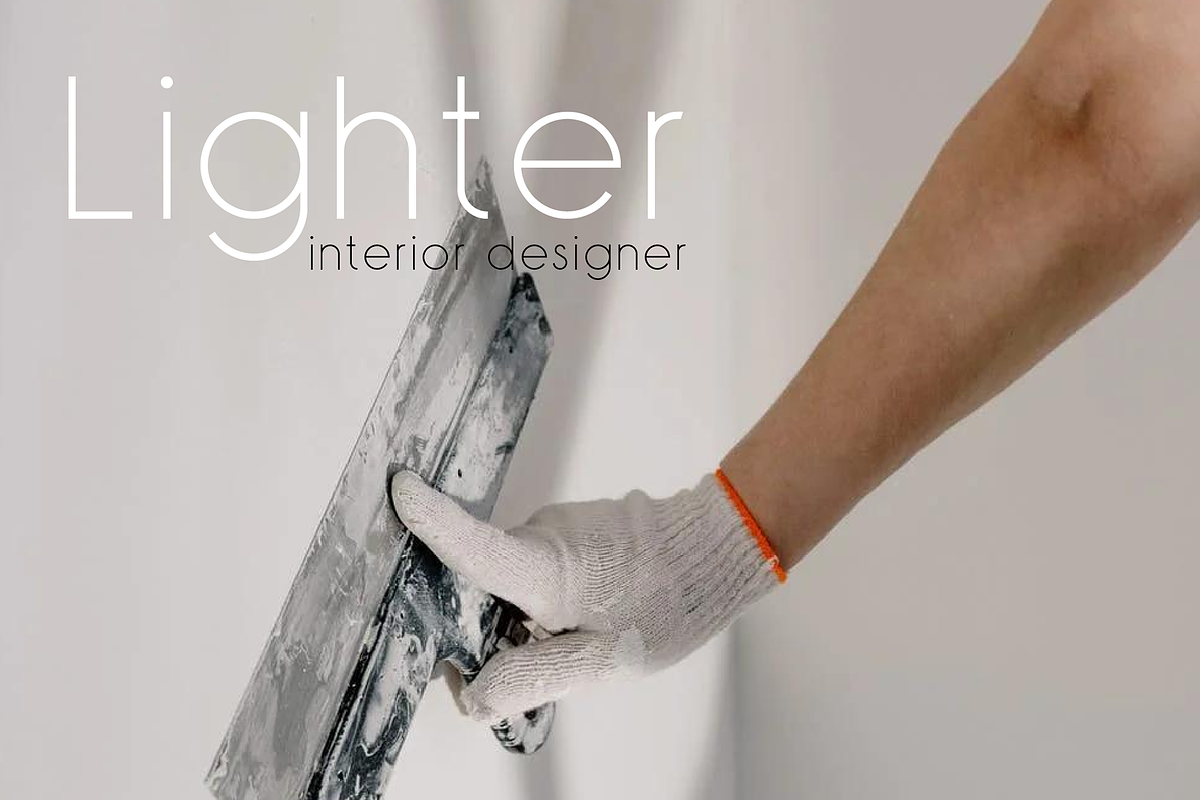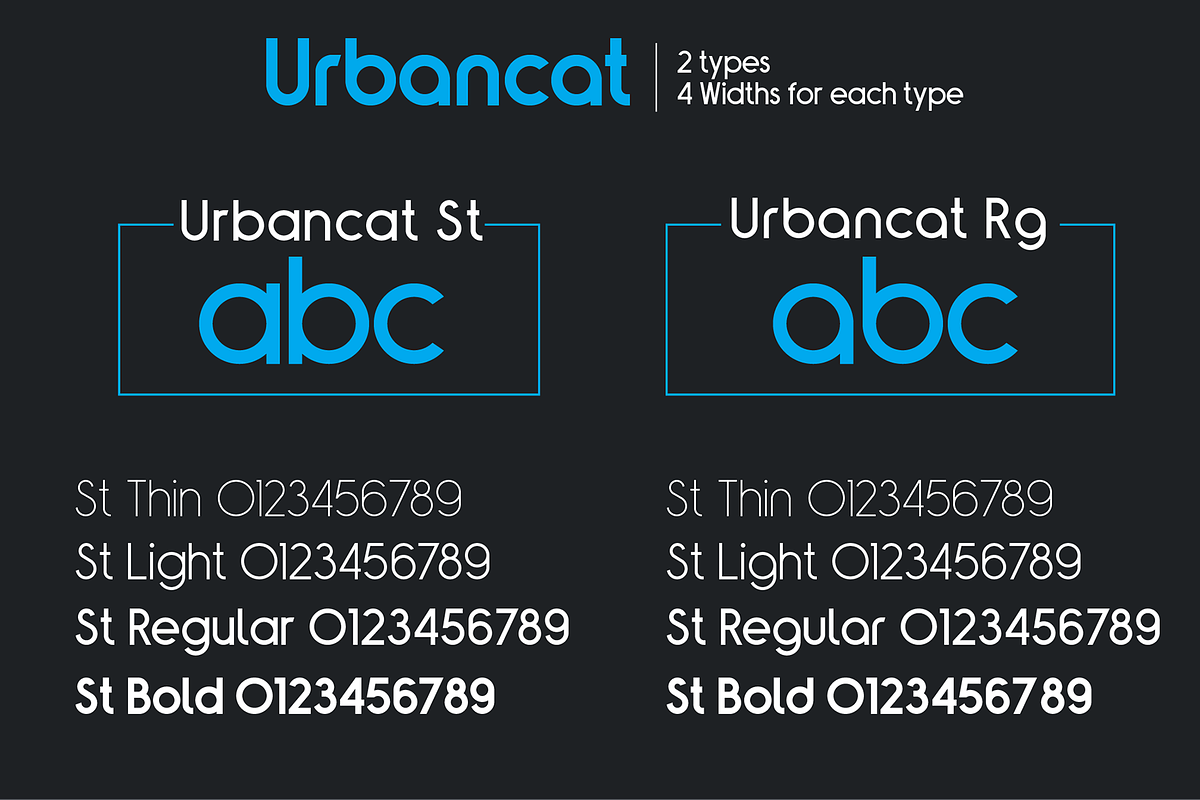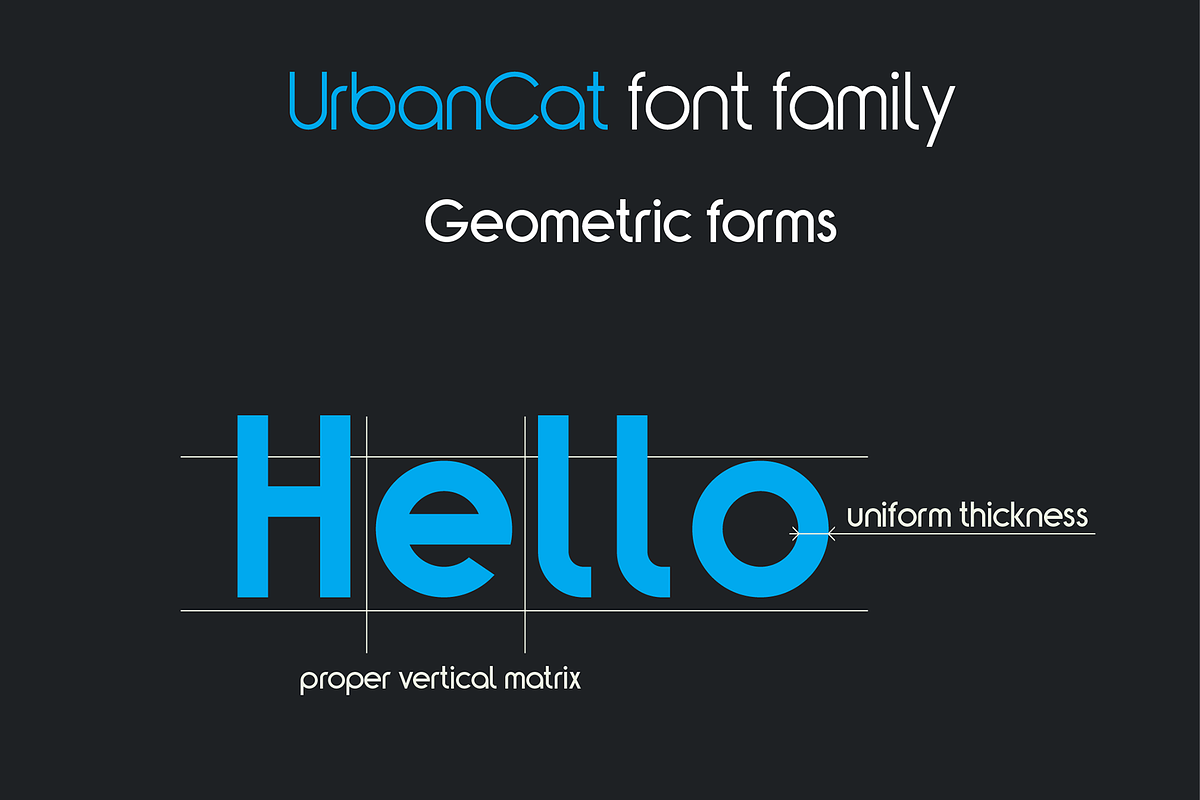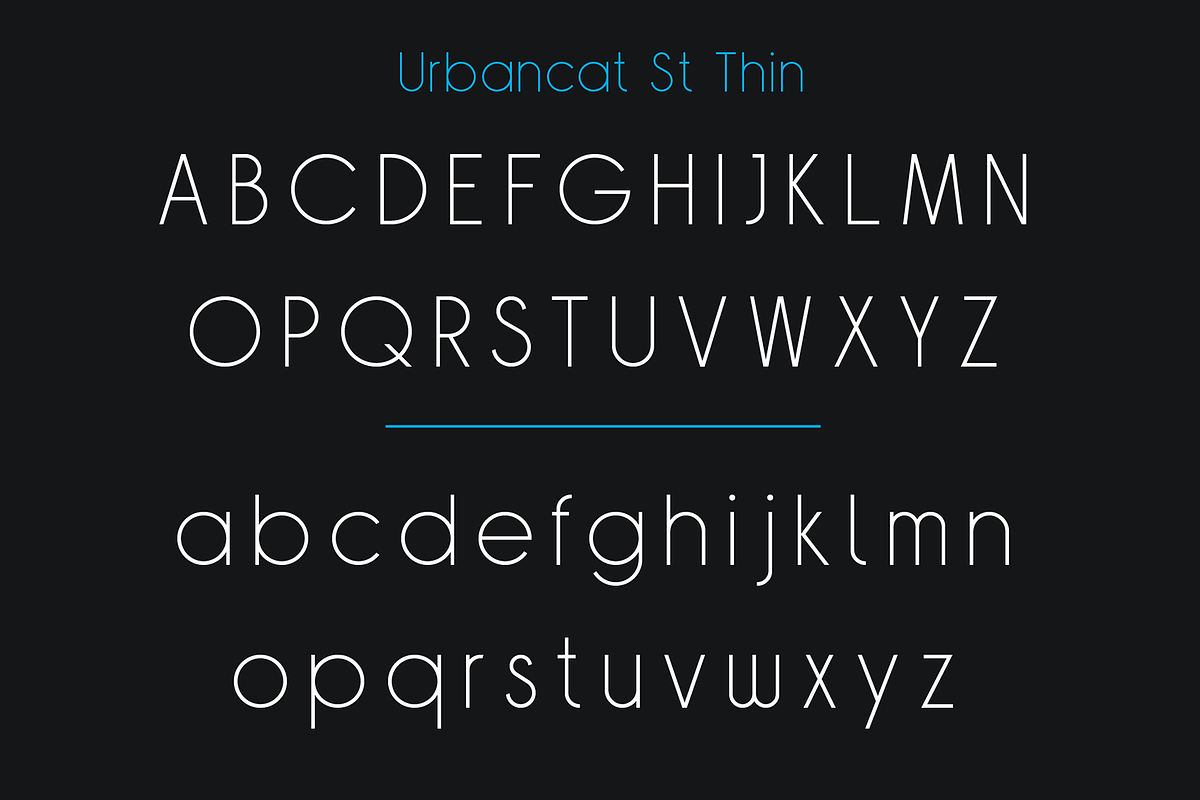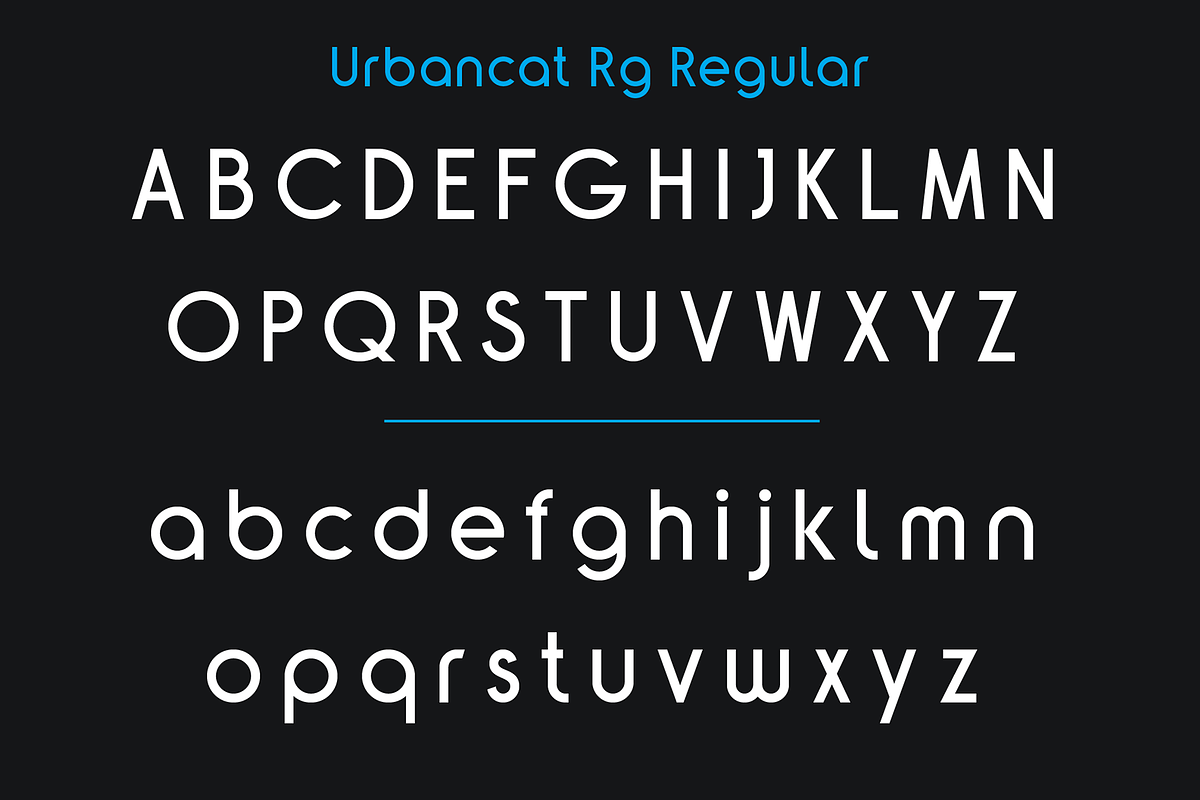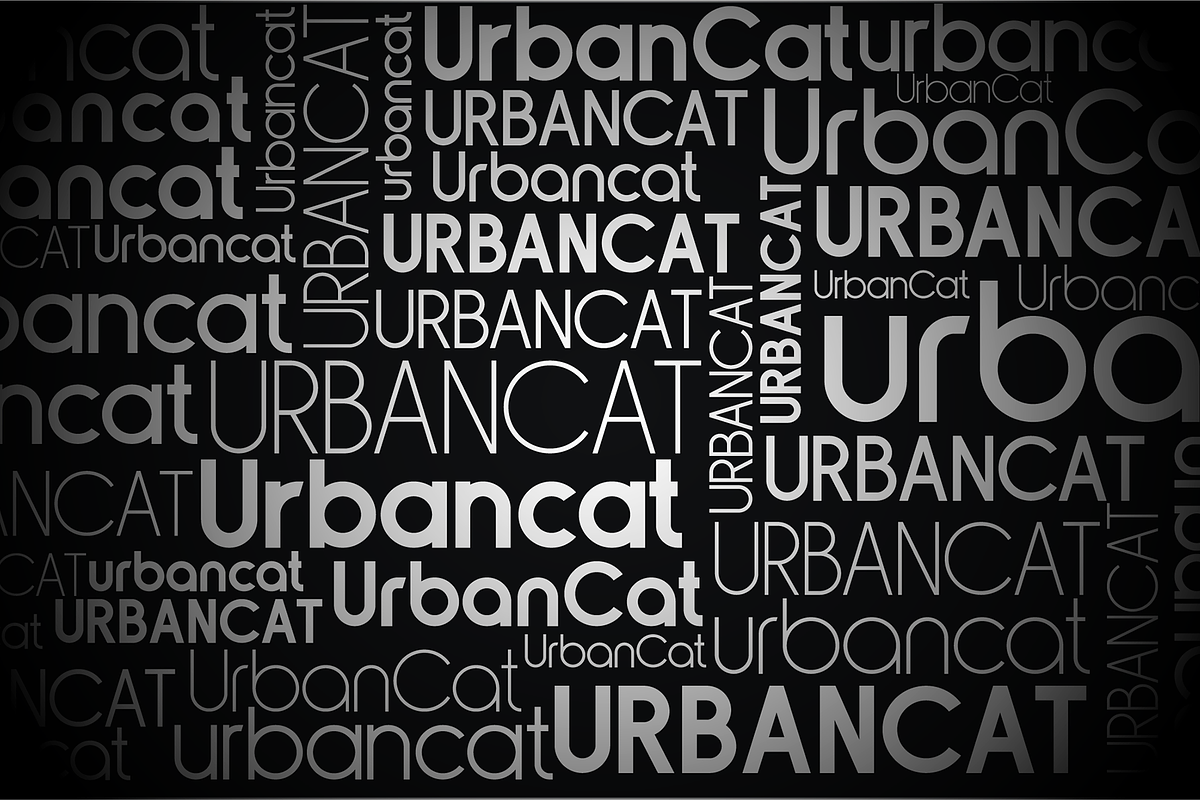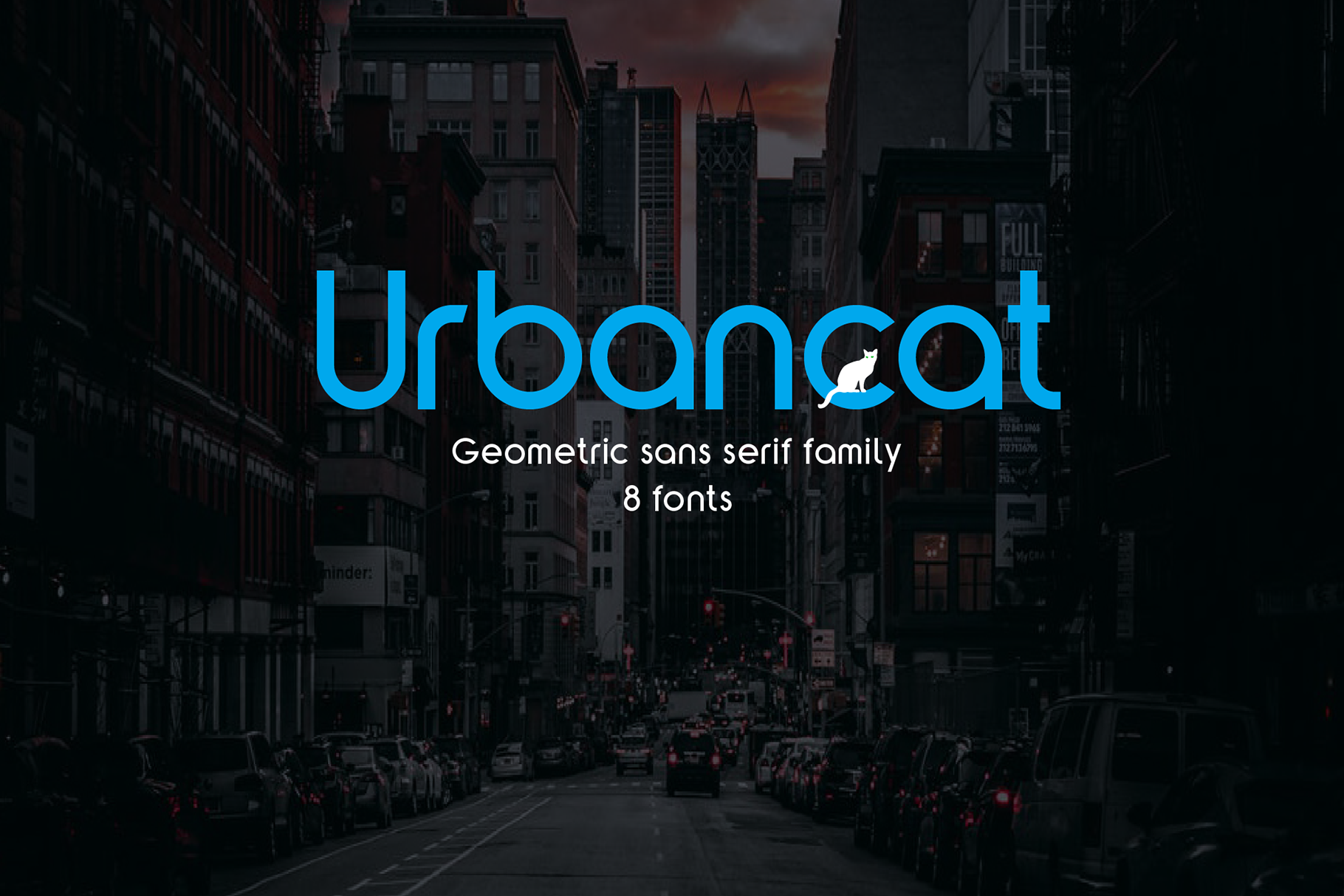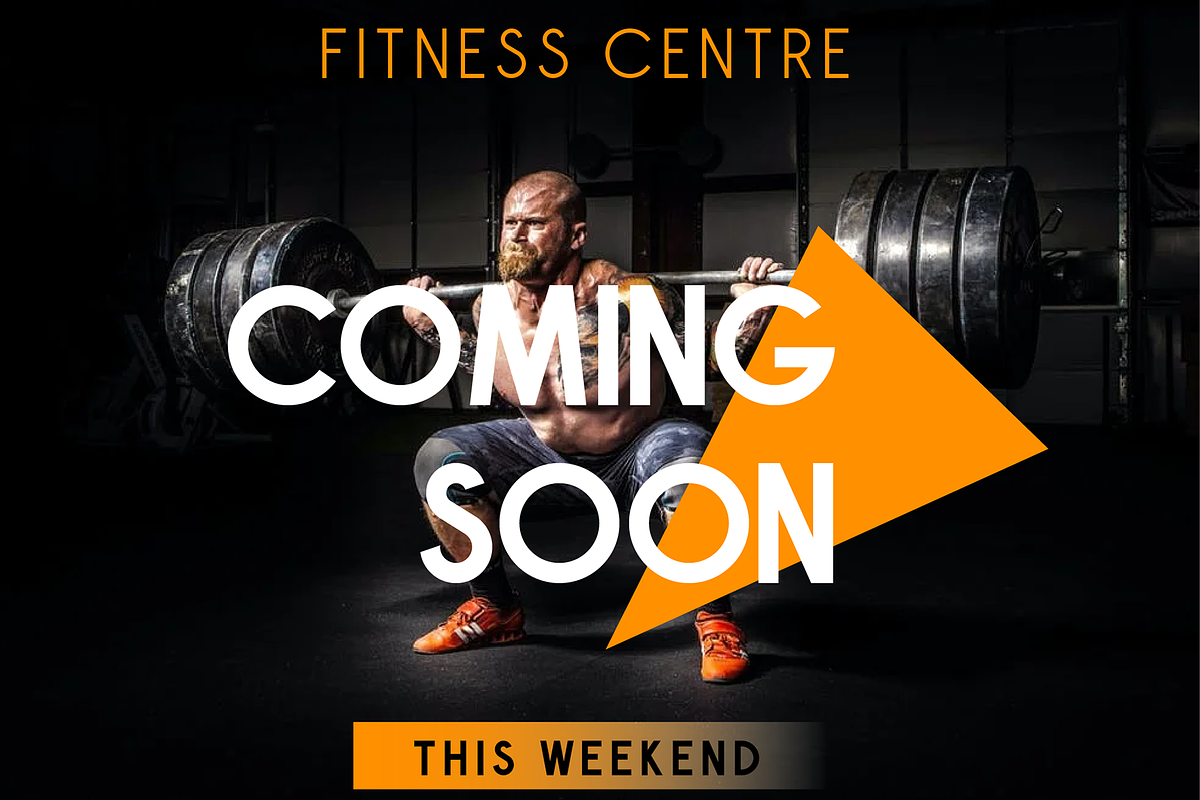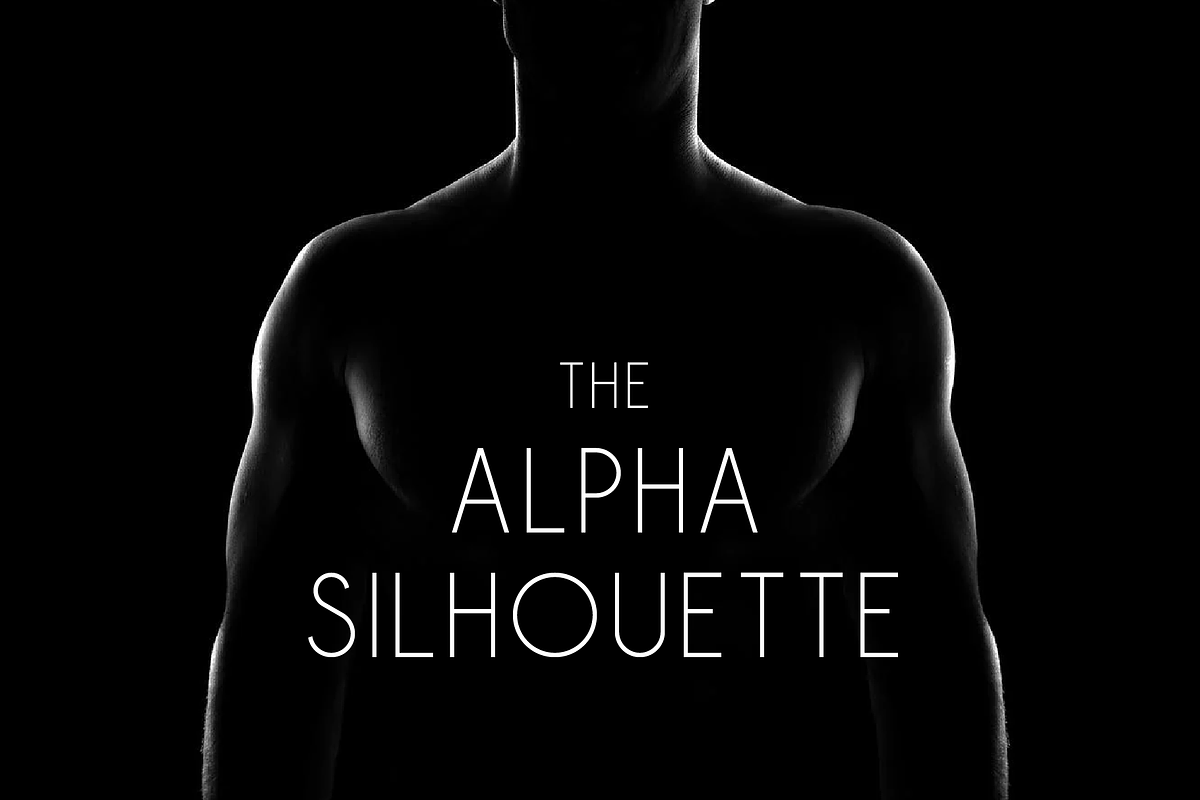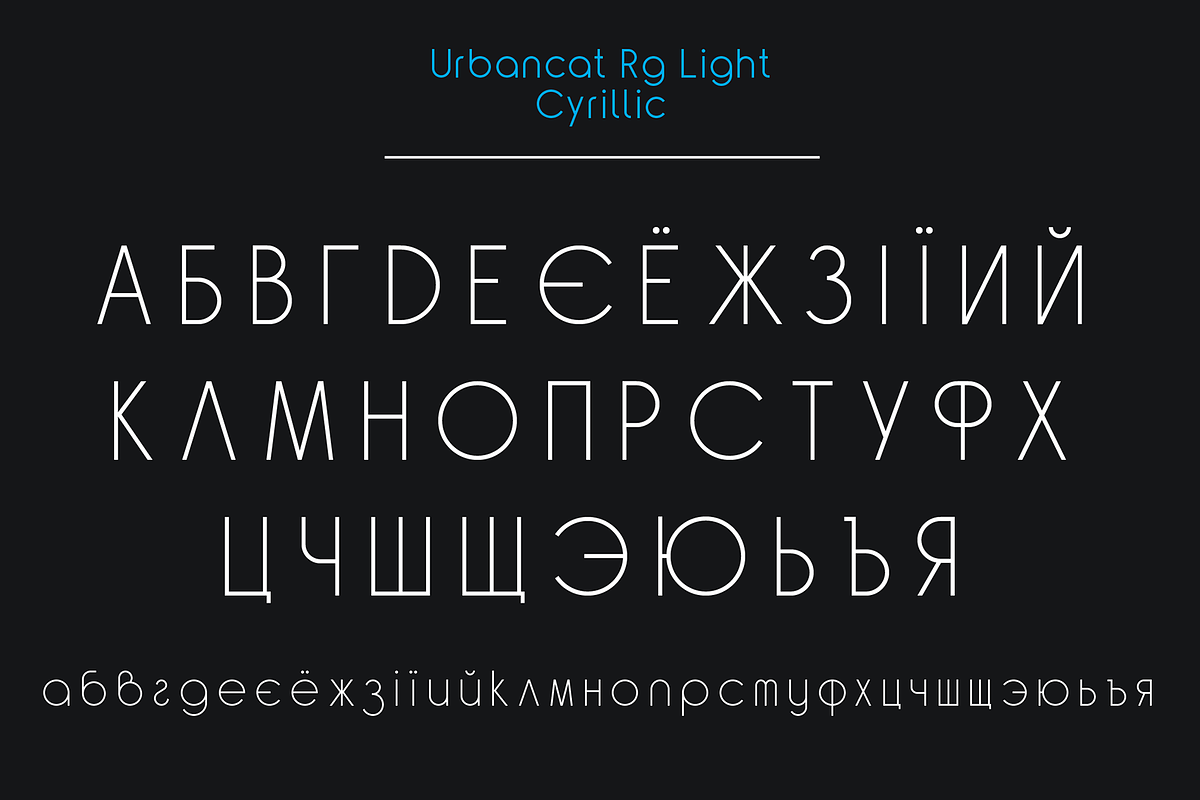
Urbancat Font Family
Urbancat is a modern sans serif geometric font family, includes upper and lower case characters, Latin, Cyrillic, Latin Eastern Europe, Turkish, Baltic and other.
The Urbancat family consists of 8 fonts, divided into 4 subgroups (according to the type of style - St, Rg), and have the 4 types of thickness in each subgroup.
Urbancat fonts will be useful in developing a brand, creating posters and other graphic products, and for word processing